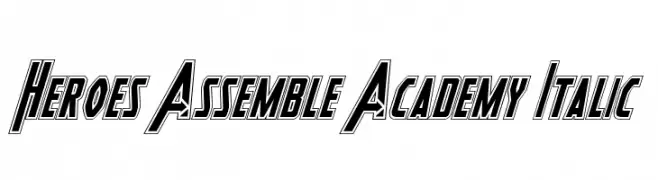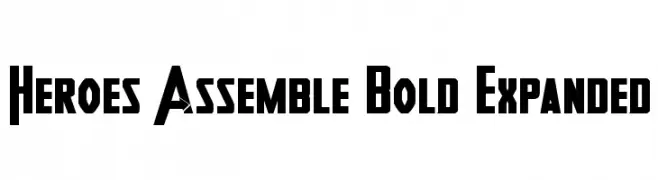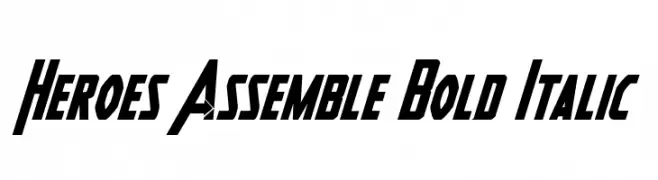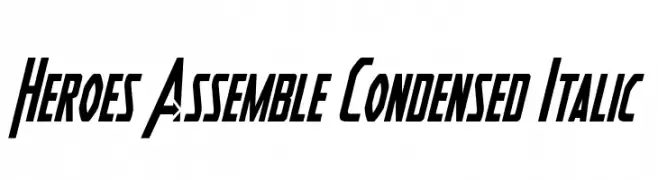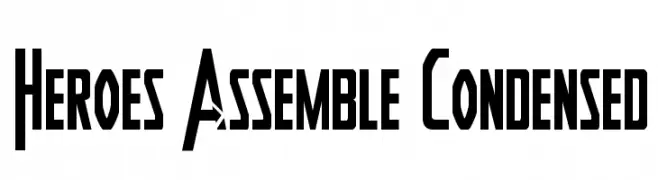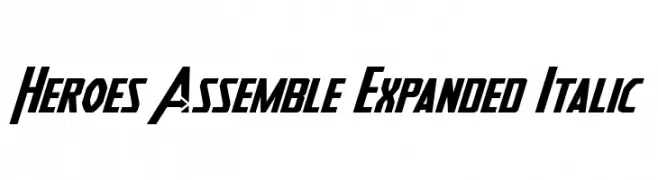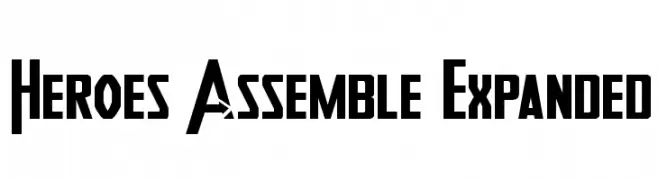
A bold, italicized font with strong geometric shapes and outlined characters.
A bold, three-dimensional font with a dynamic and powerful style.
A bold, angular font with a superhero-inspired, decorative style.
A bold, expanded font with geometric shapes and sharp angles, perfect for impactful headlines.
A bold, expanded, and italicized font with a dynamic and futuristic style.
A bold, italicized font with a dynamic and heroic style.
A bold, condensed font with sharp, angular edges, ideal for dynamic and powerful designs.
A bold, condensed italic font with a dynamic and modern style.
A bold, angular font with a modern and dynamic design.
A bold, expanded, and italicized font with a modern and dynamic style.